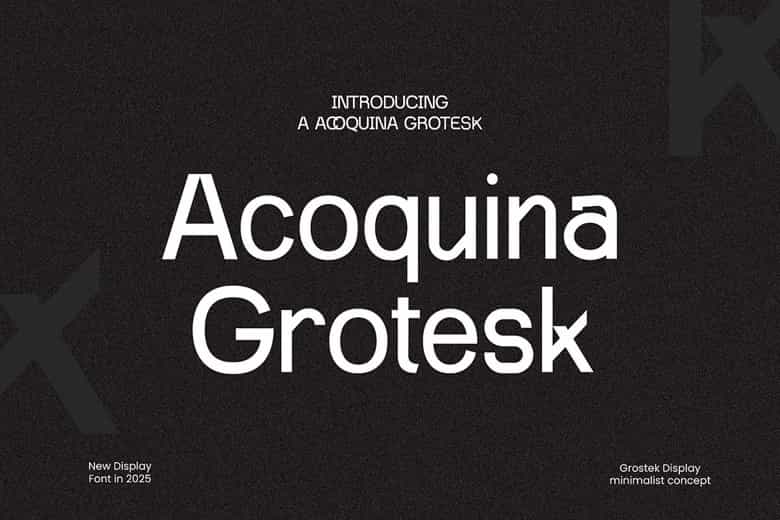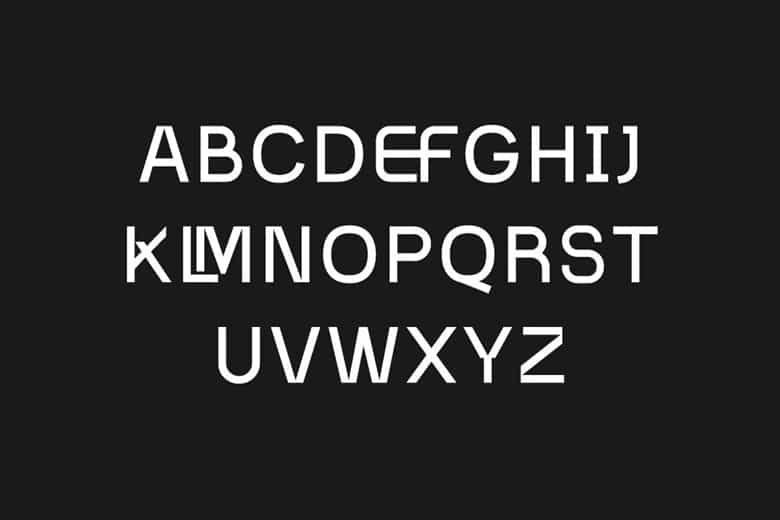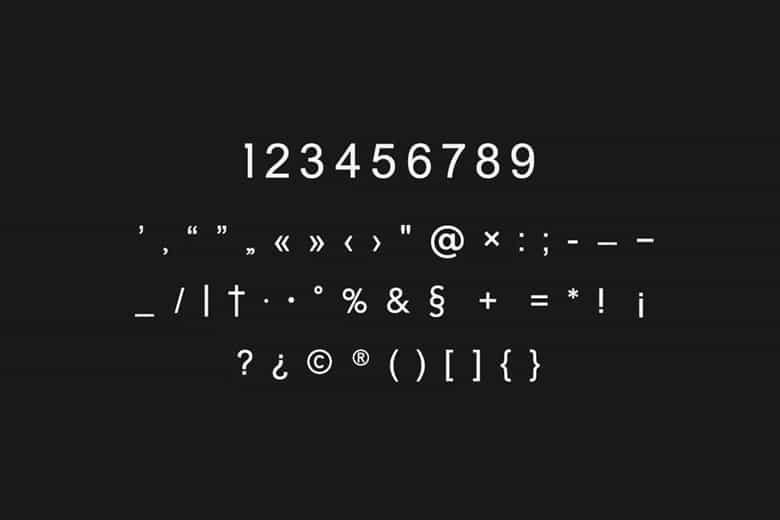
Acoquina Grotesk is a modern sans serif typeface, refined to be neutral and touching for any and all use. Thus, this font is very suitable for the signature, letterhead, logos, wedding, quote, magazine or book cover, website header, brand, and other purposes.